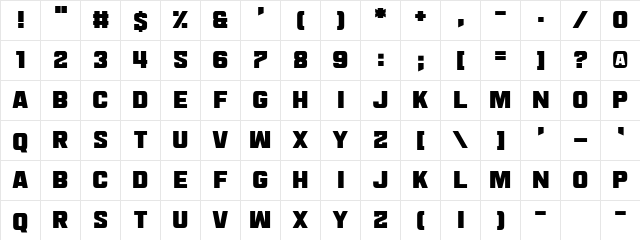
Smack Laideth Down 2019 Regular
| Designer | Allison James |
Smack Laideth Down 2019 takes a measured approach to typography — its balanced proportions and neutral character make it a reliable workhorse for both digital and print work.